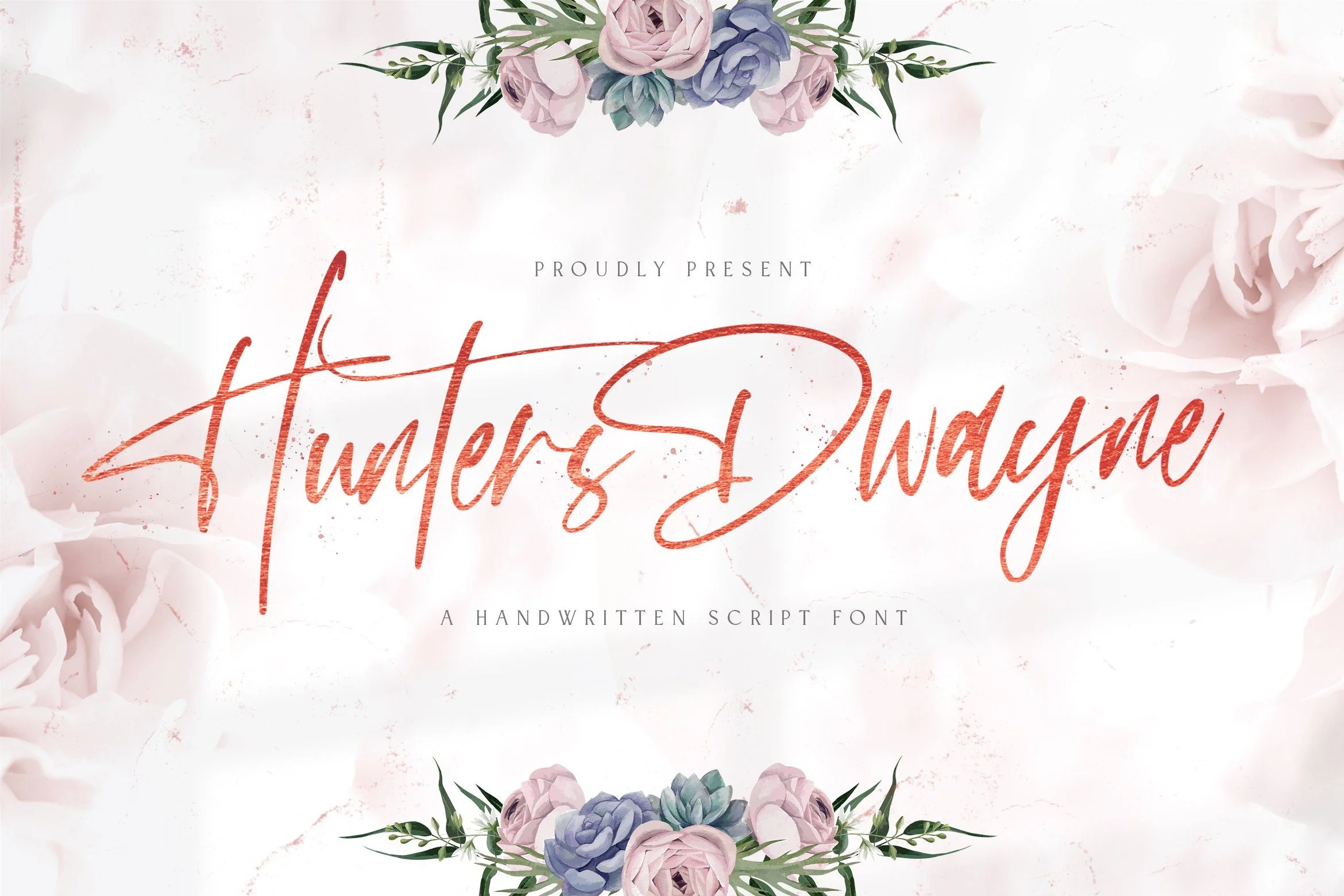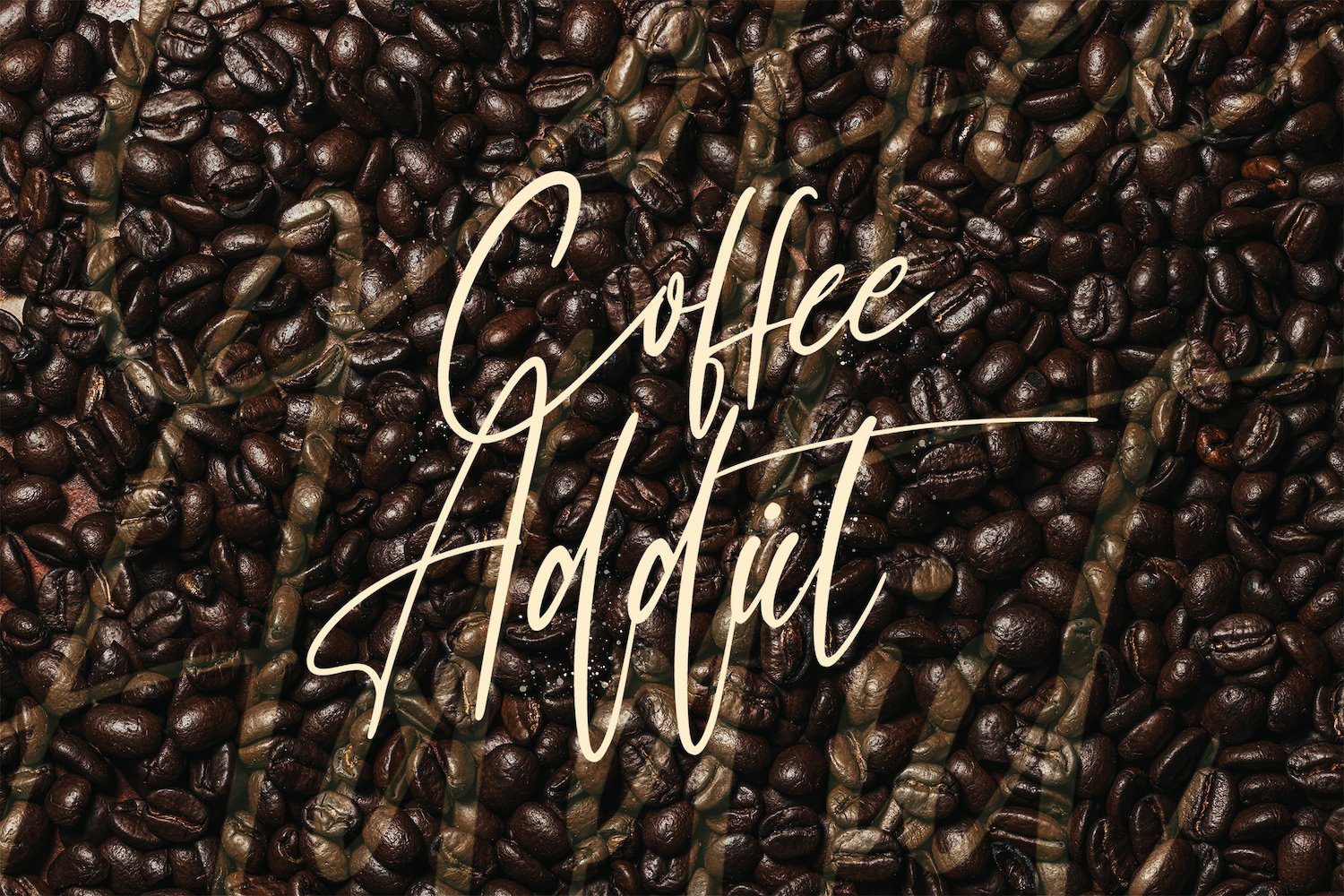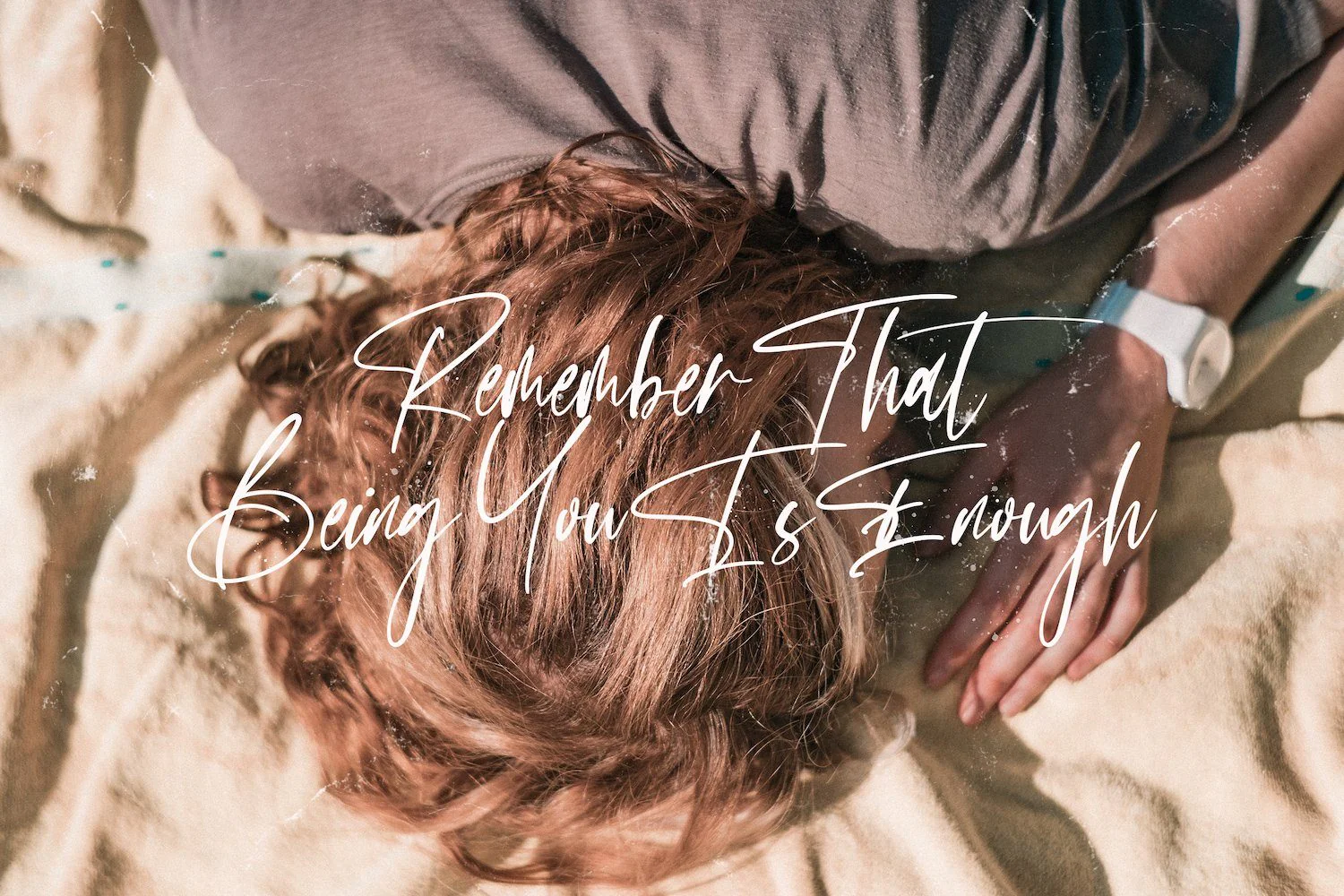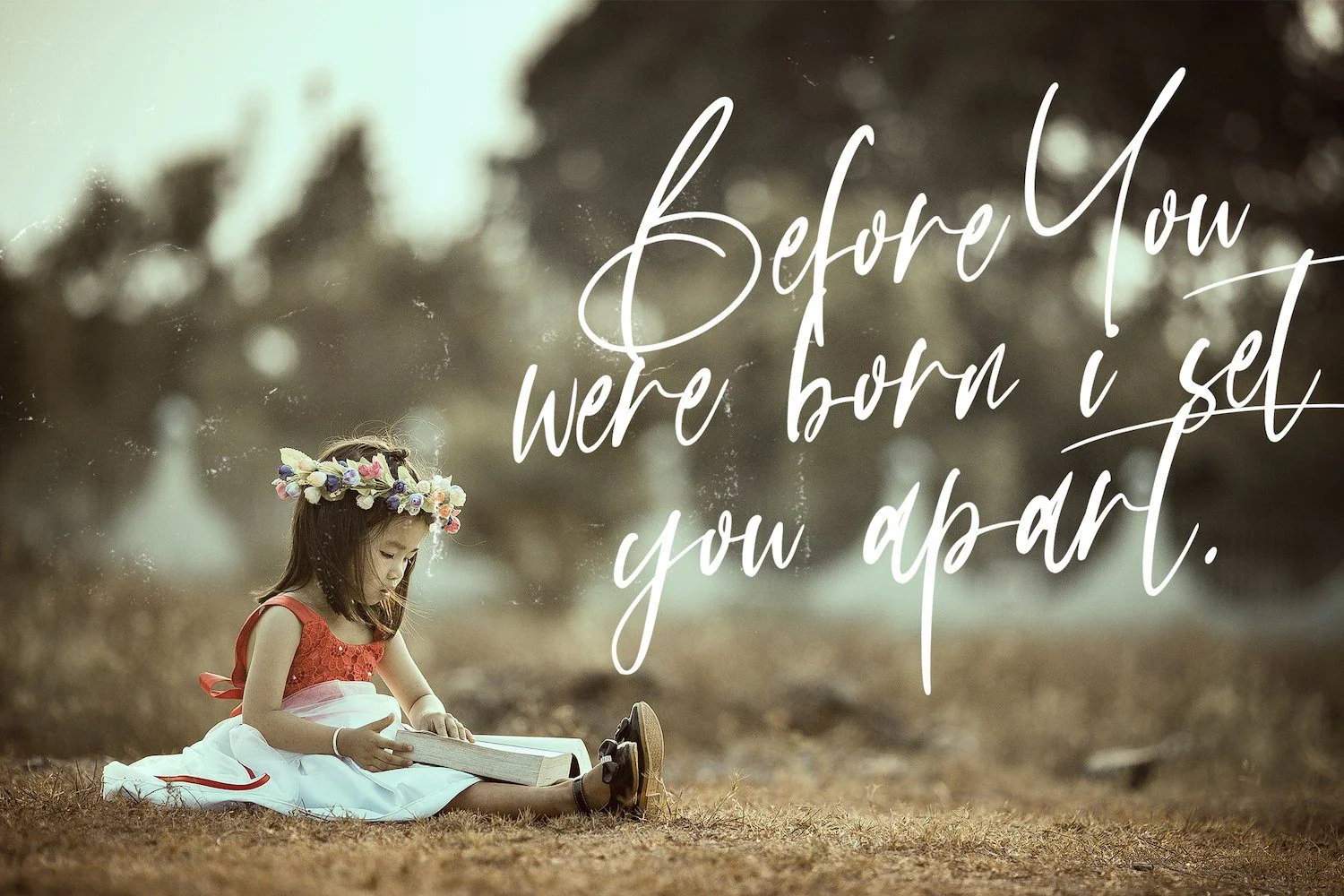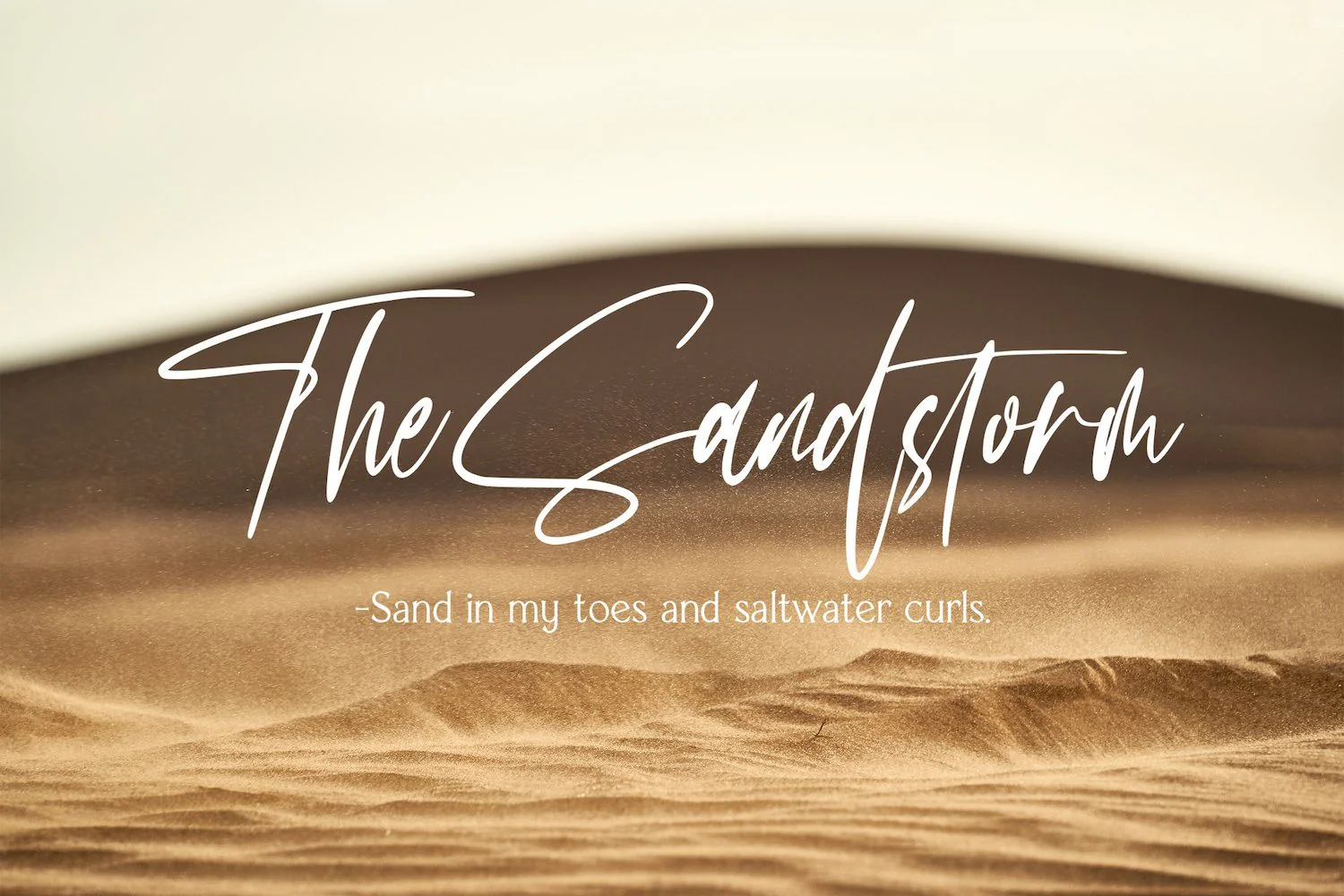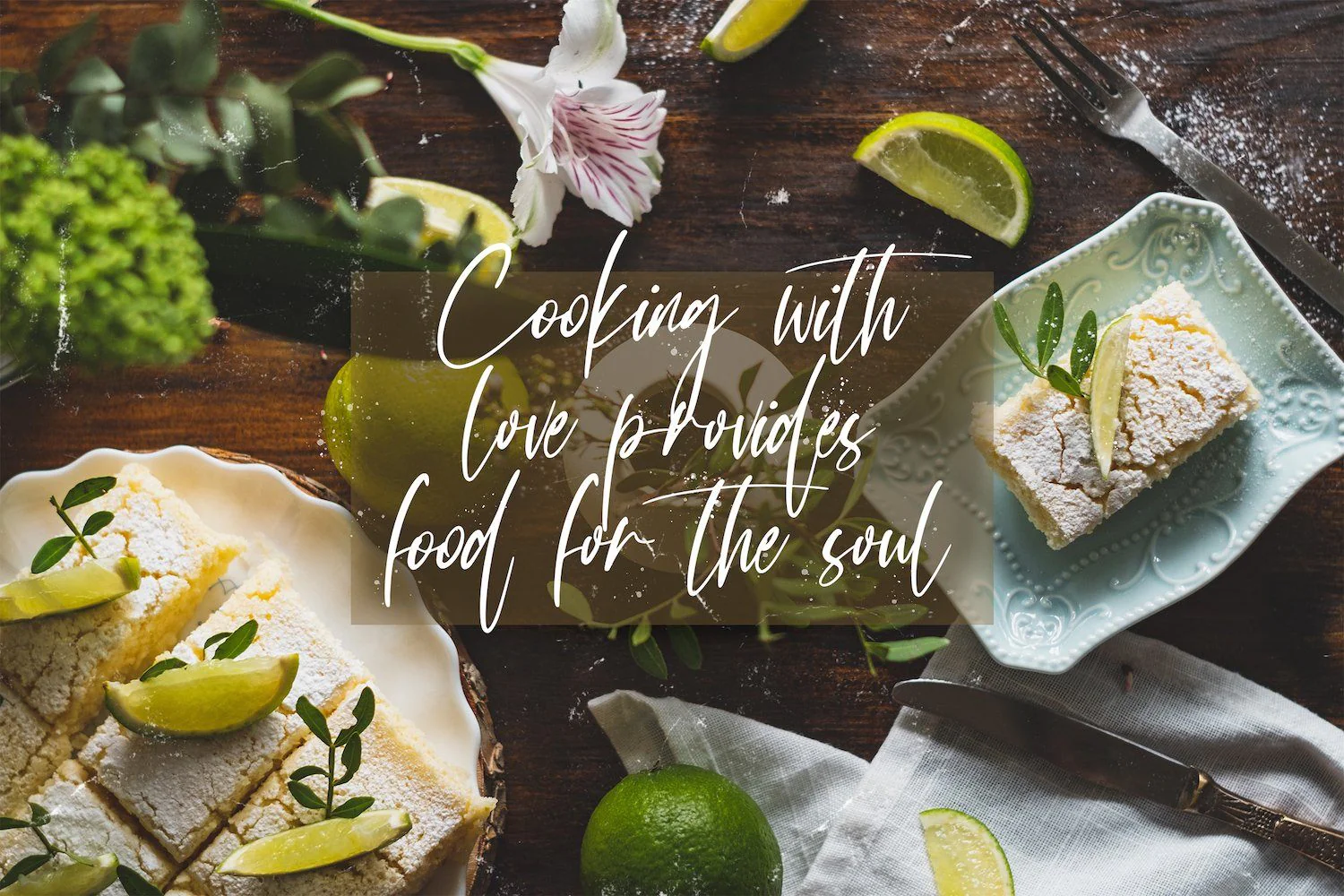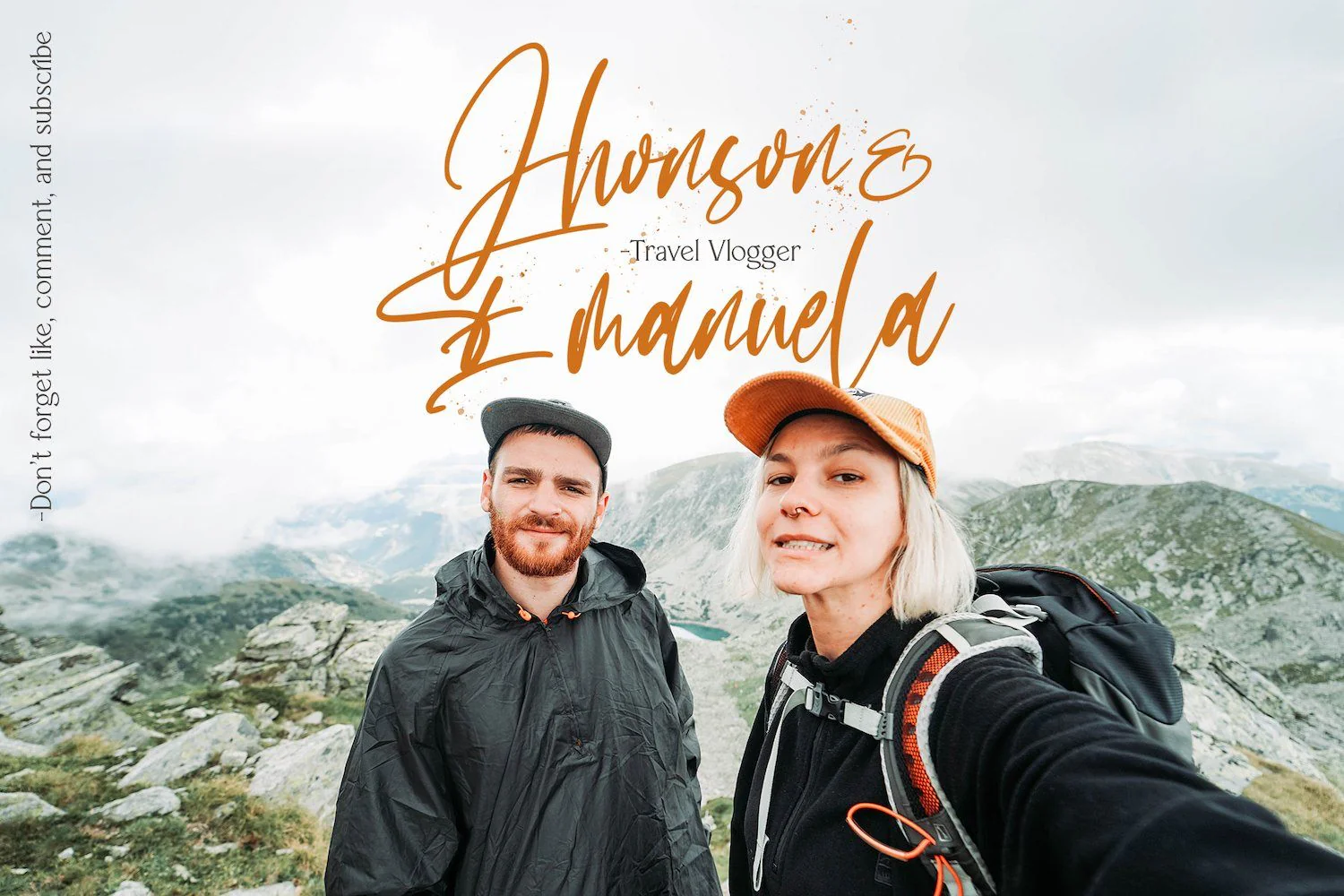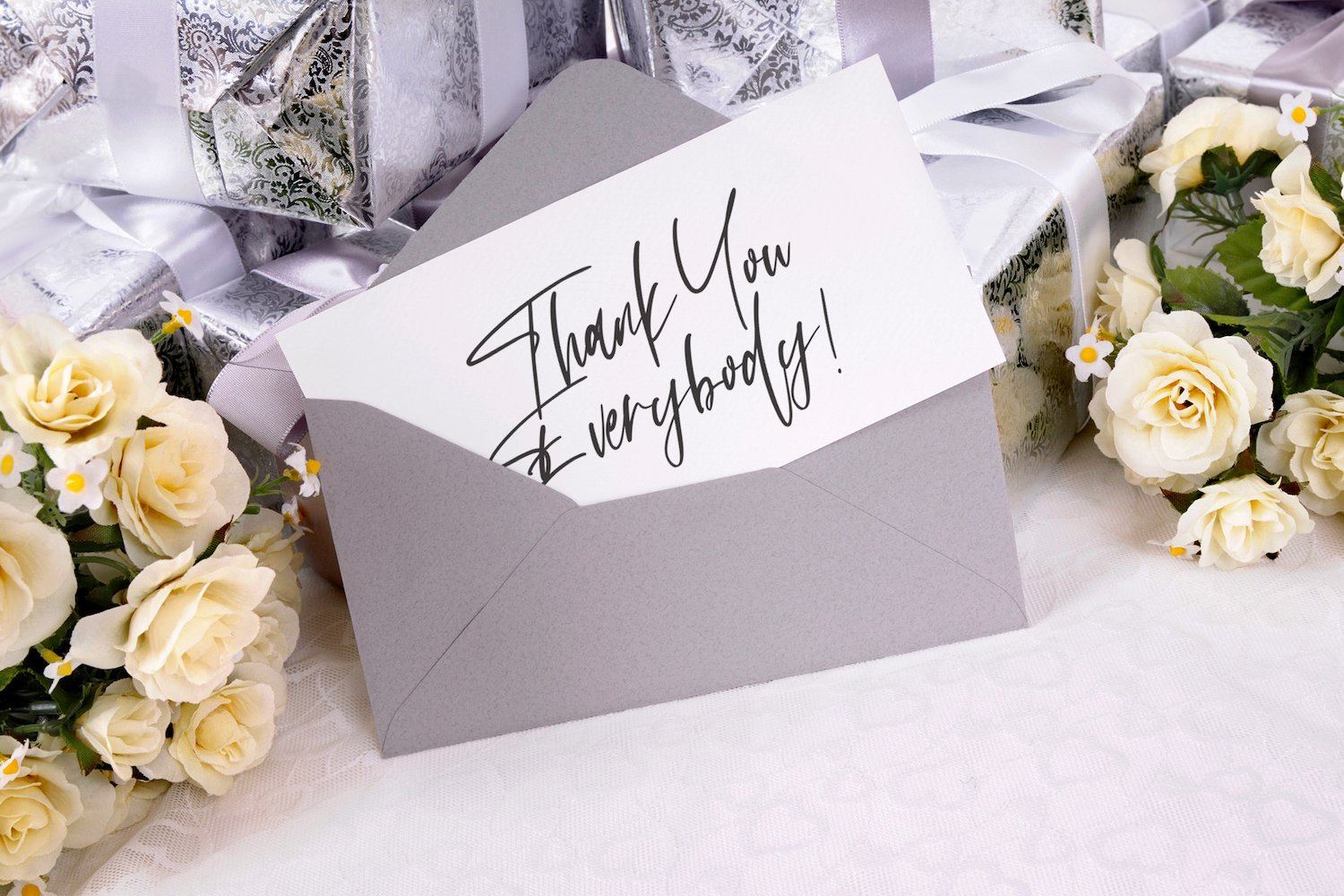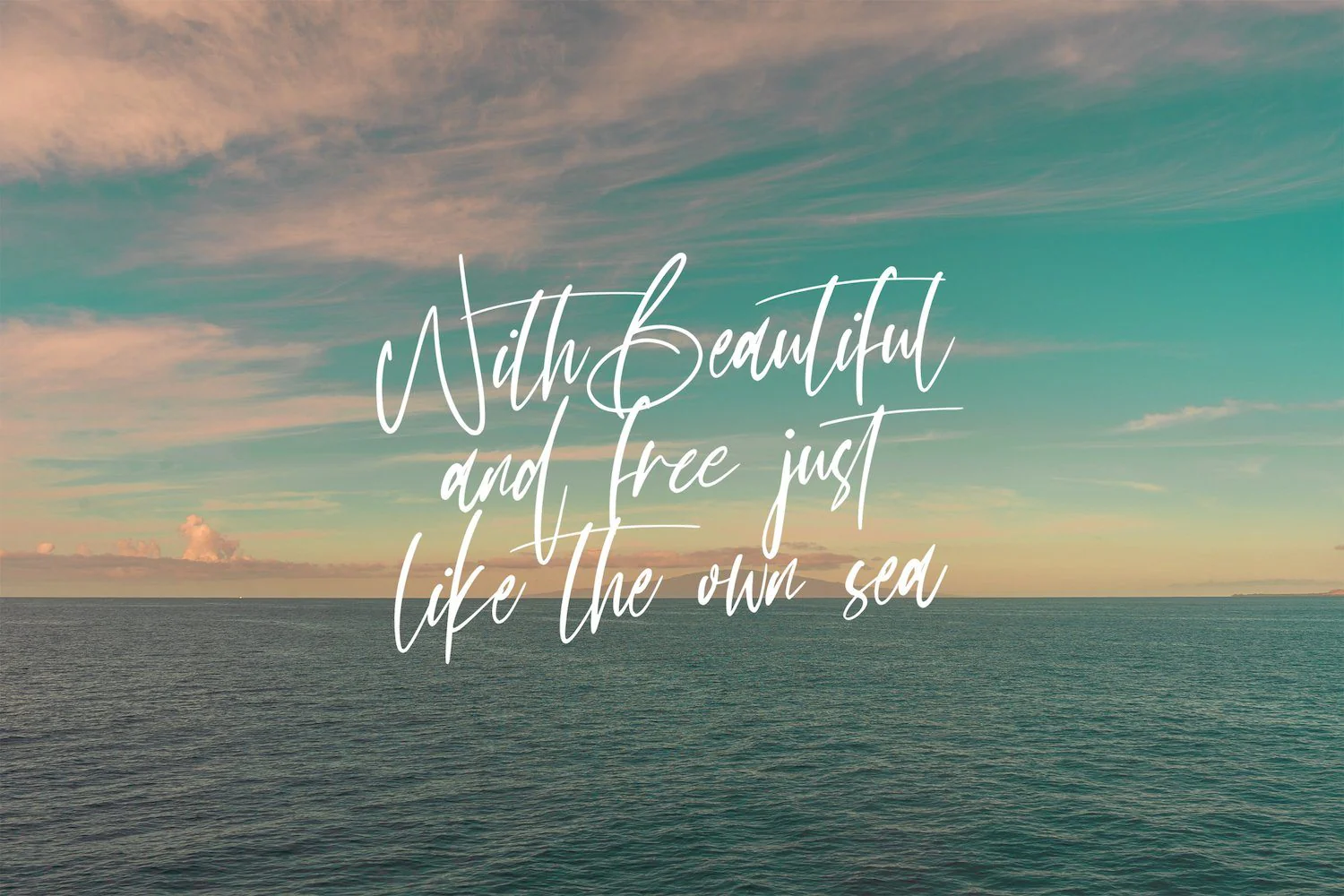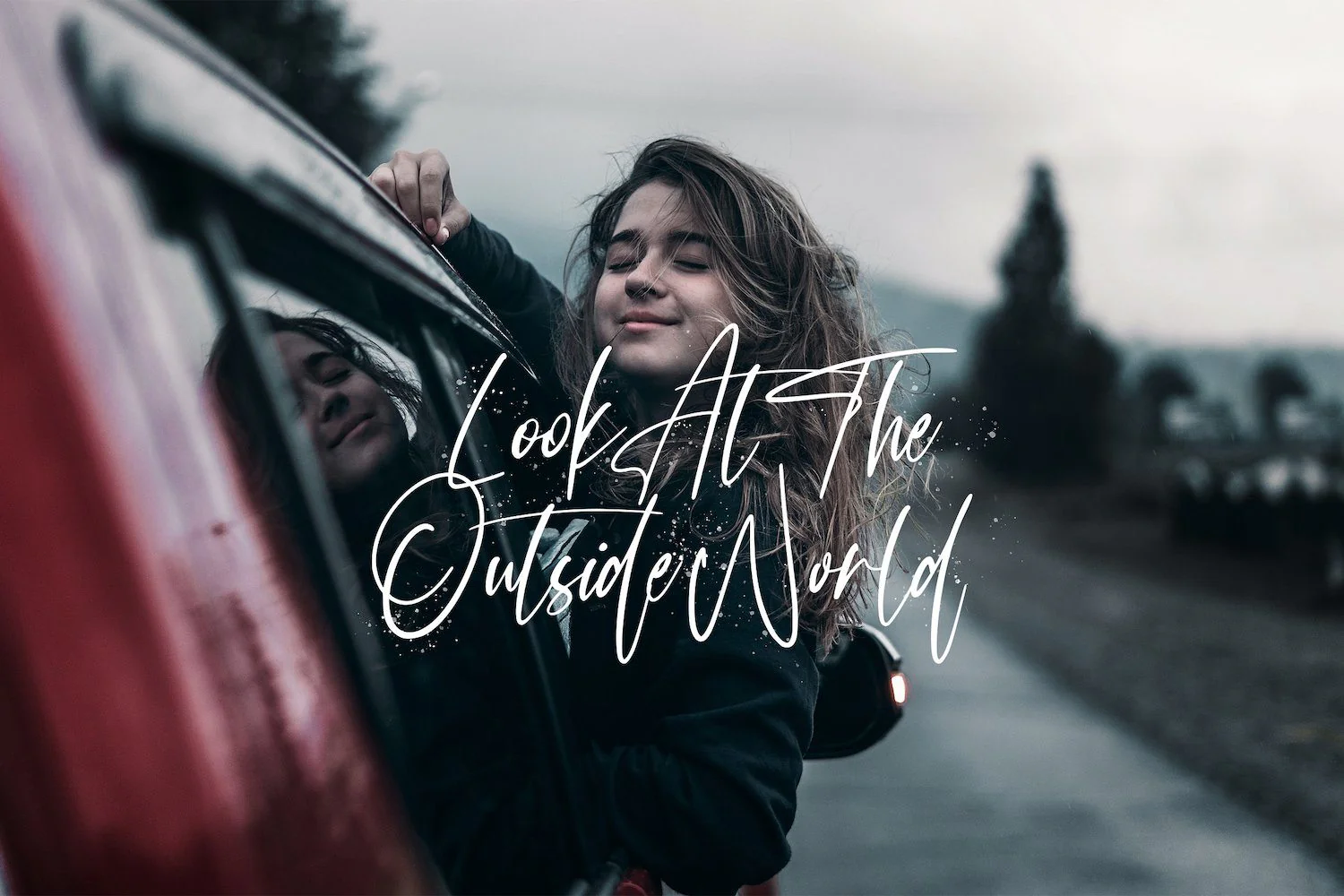
Hunthers Dwayne - Handwritten Font
Introducing Hunthers Dwayne - Handwritten Font
Hunthers Dwayne is a delicate, elegant and flowing handwritten font. It has beautiful and well balanced characters and as a result, it matches a wide pool of designs. Add it to your most creative ideas and notice how it makes them come alive!